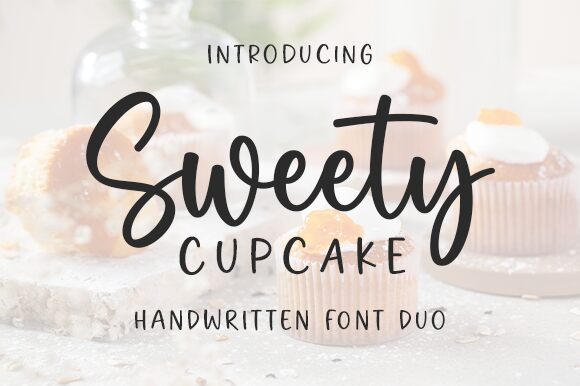
Sweety, designed by Nirmala Creative, is a charming semi-light handwritten font that exudes elegance. With its beautiful and well-balanced characters, Sweety is perfect for projects that require a touch of sophistication and warmth.
Whether you're creating wedding invitations, greeting cards, or branding materials for a luxury bakery, this font will effortlessly elevate your designs. Its flowing script adds a personal and intimate feel to any project, making it an excellent choice for crafting heartfelt messages or creating stylish logos.
Embrace the sweetness of Sweety and bring your designs to life.